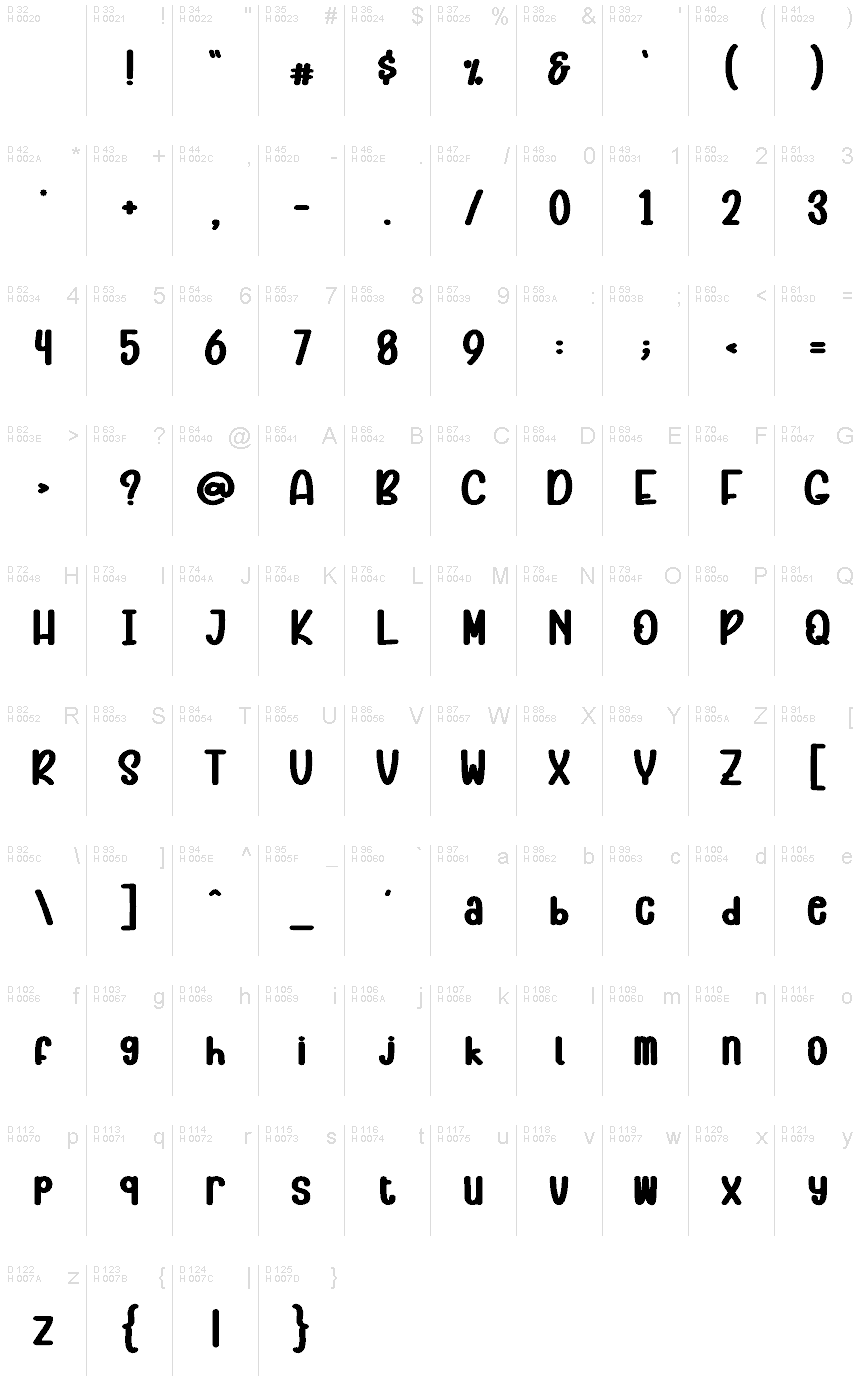
Happy Dinner
Happy Dinner font by Scratchones is a handwritten font that can add an artistic twist to your designs. Its casual rounded letters feel cheerful and friendly, instantly affecting and engaging the reader. Use all 3 styles in the way you see fit for expressive and creative typography.
Happy Dinner is a free handwritten font for posters, hand lettering projects, printouts, typographic logos, book covers, titles etc. Give it a go in greeting cards of all sorts: birthday cards, invitation cards etc., or in festive packages and branding items that’ll captivate the public’s attention at first sight.